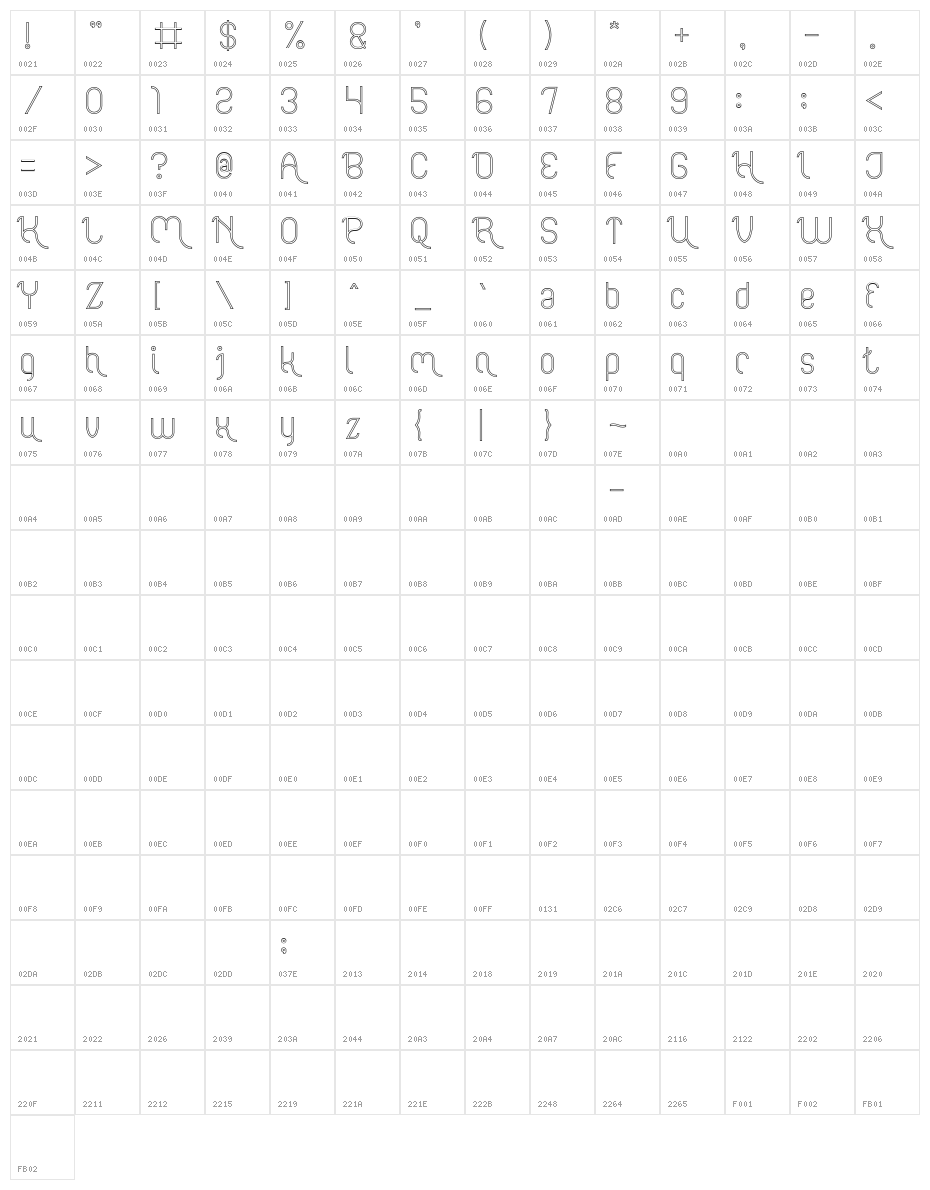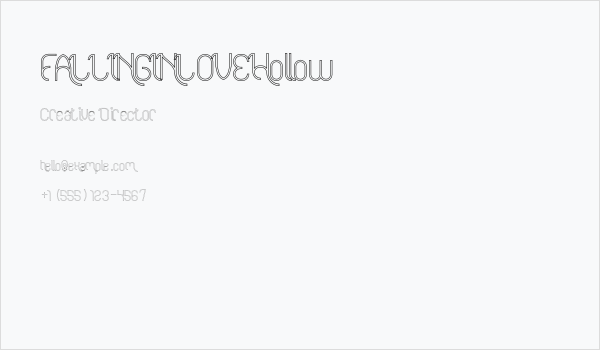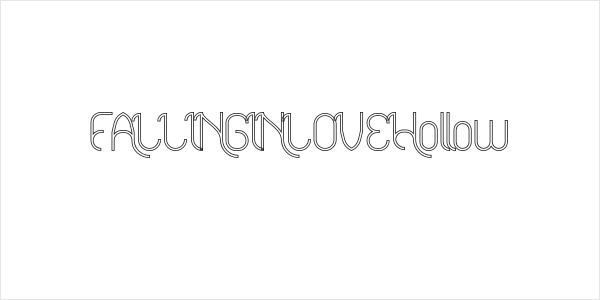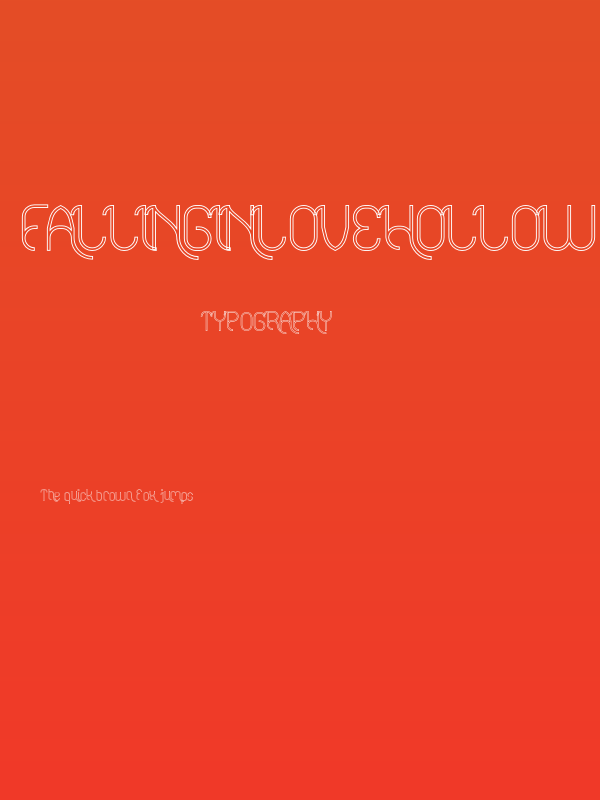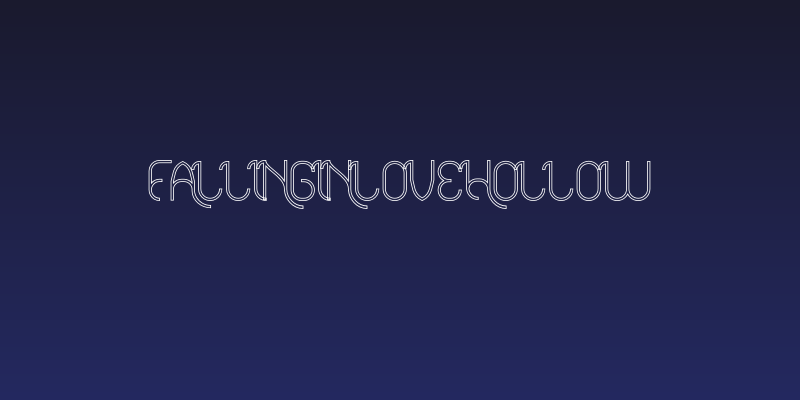
FALLINGINLOVEHollow Font
FALLINGINLOVEHollow Description
This font features a unique hollow design with a modern and artistic flair. The characters are outlined, giving them a light and airy appearance. The uppercase and lowercase letters maintain a consistent style, with smooth curves and a slightly condensed form. The numerals and special characters follow the same aesthetic, ensuring a cohesive look across all text. This font is ideal for projects that require a creative and contemporary touch, offering a distinctive appearance that stands out while remaining legible.